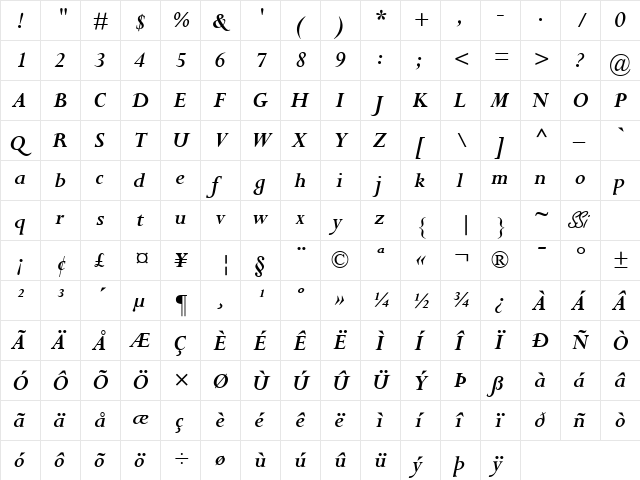
Compleat SSi Bold Italic
Design Context for Compleat SSi Typeface
Compleat SSi is a composed and adaptable typeface that performs quietly and consistently across a wide range of design contexts. The dynamic lean of this cut emphasises speed and emphasis in any layout. Its bold stroke weight gives it real presence on the page.
Pro Tip: Use Compleat SSi for emphasis, pull quotes, and subheadings where its slanted energy can add rhythm to the layout.